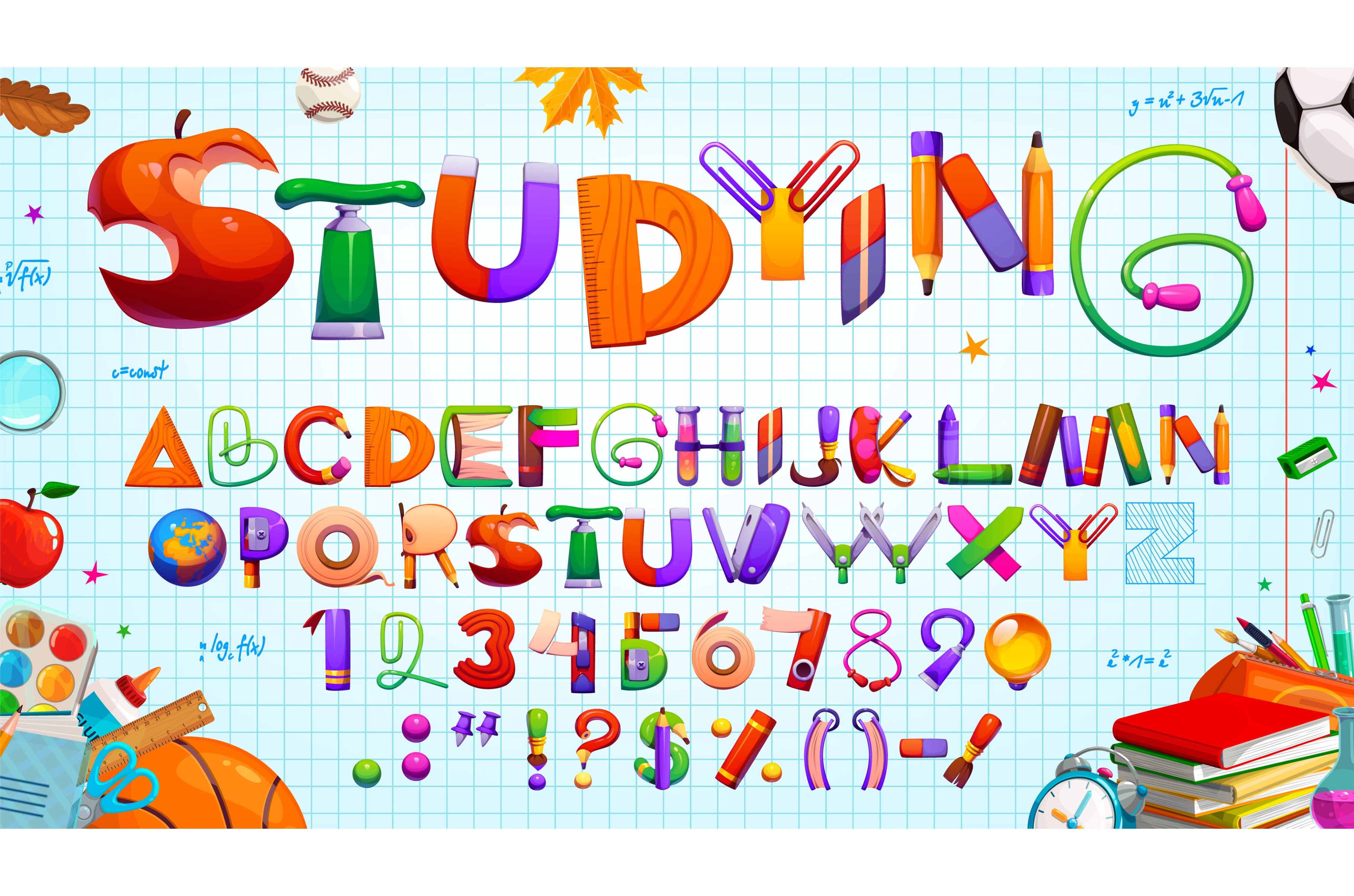
Cartoon education font
Cartoon education font, school kid typeface, creative typography type, funny English alphabet. Vector educational abc showcases letters created from school supplies, promoting fun learning for kids